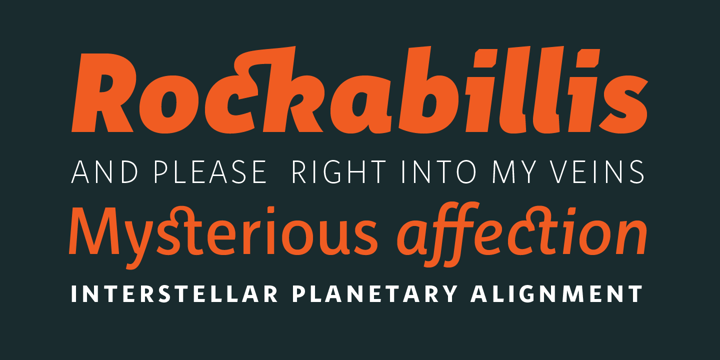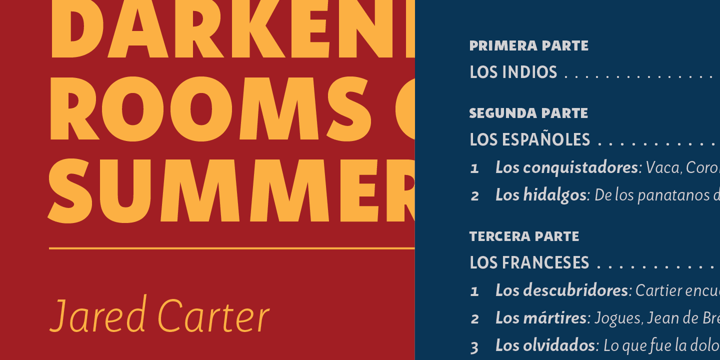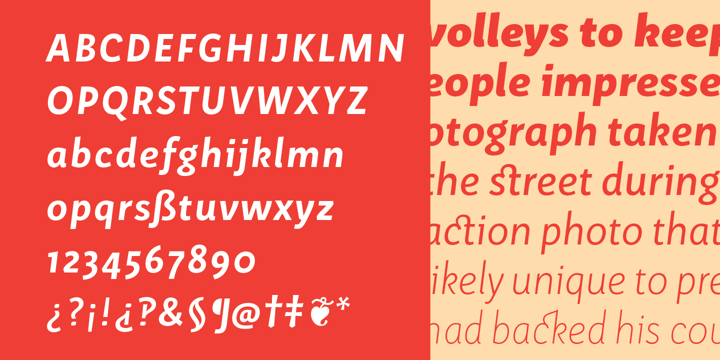
Aromo
Aromo by TipoType
Aromo Font Family was designed by Rodrigo López Fuentes and published by TipoType. Aromo contains 14 styles and family package options. More about this family
About Aromo Font Family
Aromo was initially conceived for editorial purposes. This typeface mixes the versatility of a simple and modern sans-serif, with the sensibility of the humanist feeling: thus making it useful in a wide range of purposes when a balanced and friendly font, with elegant proportions and high readability is required. The functional nature of its design is complemented by a family of 14 variants (7 weights, plus their matching true italics) interpolated optically for application as a hierarchical resource, where the middle weights (Light, Regular) have been optimized for use in small bodies, while the extremes (Ultra Light, Black) where designed for display environments._ Aromo also offers a wide range of historical and discretionary ligatures, small caps, eleven different types of numerals and a set of more than 700 characters covering about two hundred languages of Latin script._
About TipoType
Founded in 2009 by Vicente Lamónaca, Fernando Díaz and Martin Sommaruga, Tipotype is the first foundry to ever call Uruguay home. “Our common goal,” they say, “is to distribute contemporary typefaces while creating a platform that allows type designers to easily commercialize their work.” The foundry made its MyFonts debut with Economica and Quiroga Serif: the first Uruguayan fonts ever sold. Since then, the group’s bestselling typefaces have included a geometric sans with a humanistic softness, Mariné, and Libertad. Hoping to increase the presence of type designers in their home country, they say, “As we are the only type foundry in our country, we are trying to get new designers to start commercializing their typefaces with TipoType through MyFonts.” You can find more information about TipoType and its resident designers, in the July 2017 issue of Creative Characters.